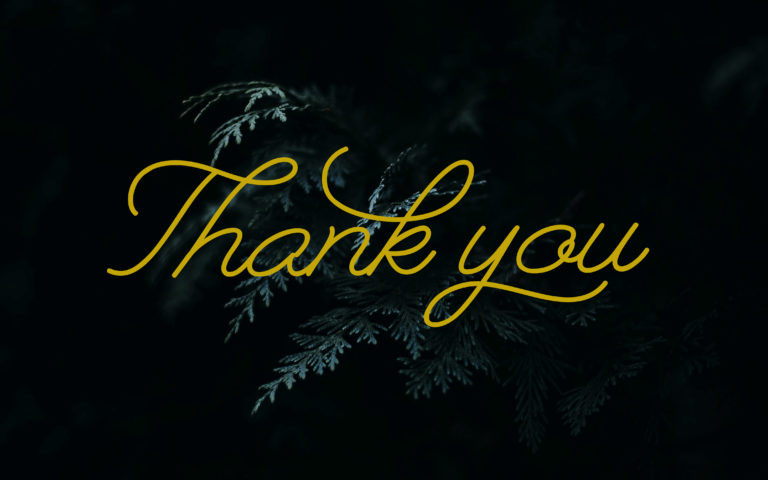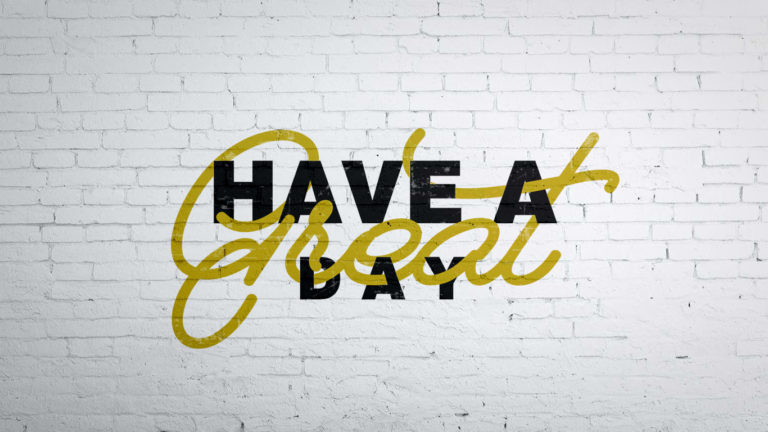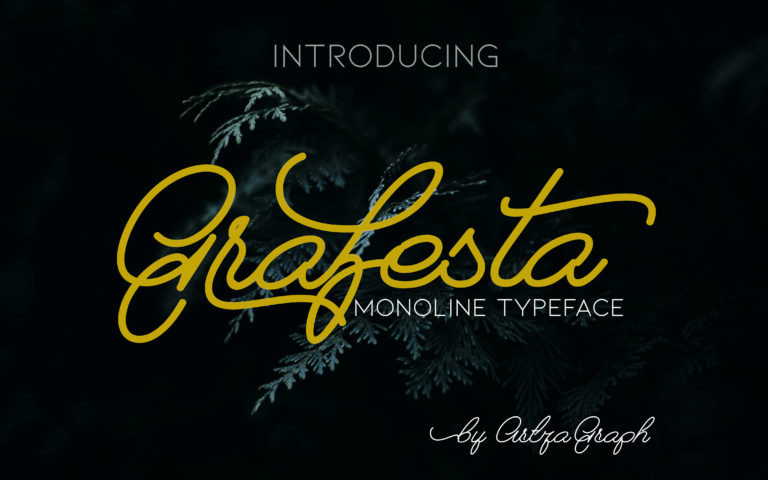
Grafesta Monoline Script Font
Introducing Grafesta Font, This is a new Monoline Script Typeface Fonts collection from Artza Graph. combines from copperplate to contemporary typeface, classic, beauty and Natural touch. It’s an elegant and smooth casual monoline signature stylish script. Grafesta has a natural characteristic that designed for all kinds of stylish project.Grafesta is perfect for branding projects, logo, wedding designs, social media posts, advertisements, product packaging, product designs, label, photography, watermark, invitation, stationery and any projects that need handwriting taste.